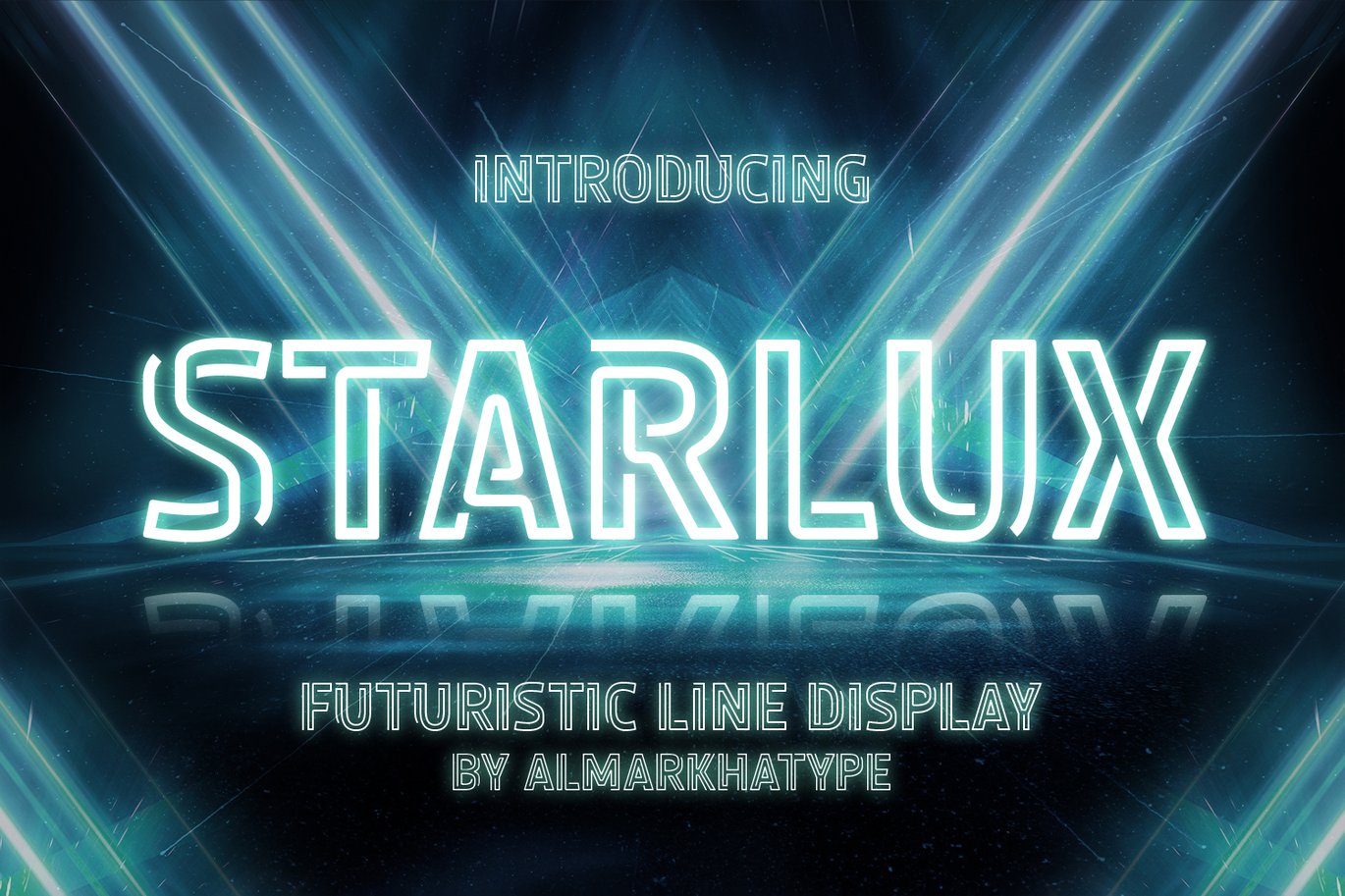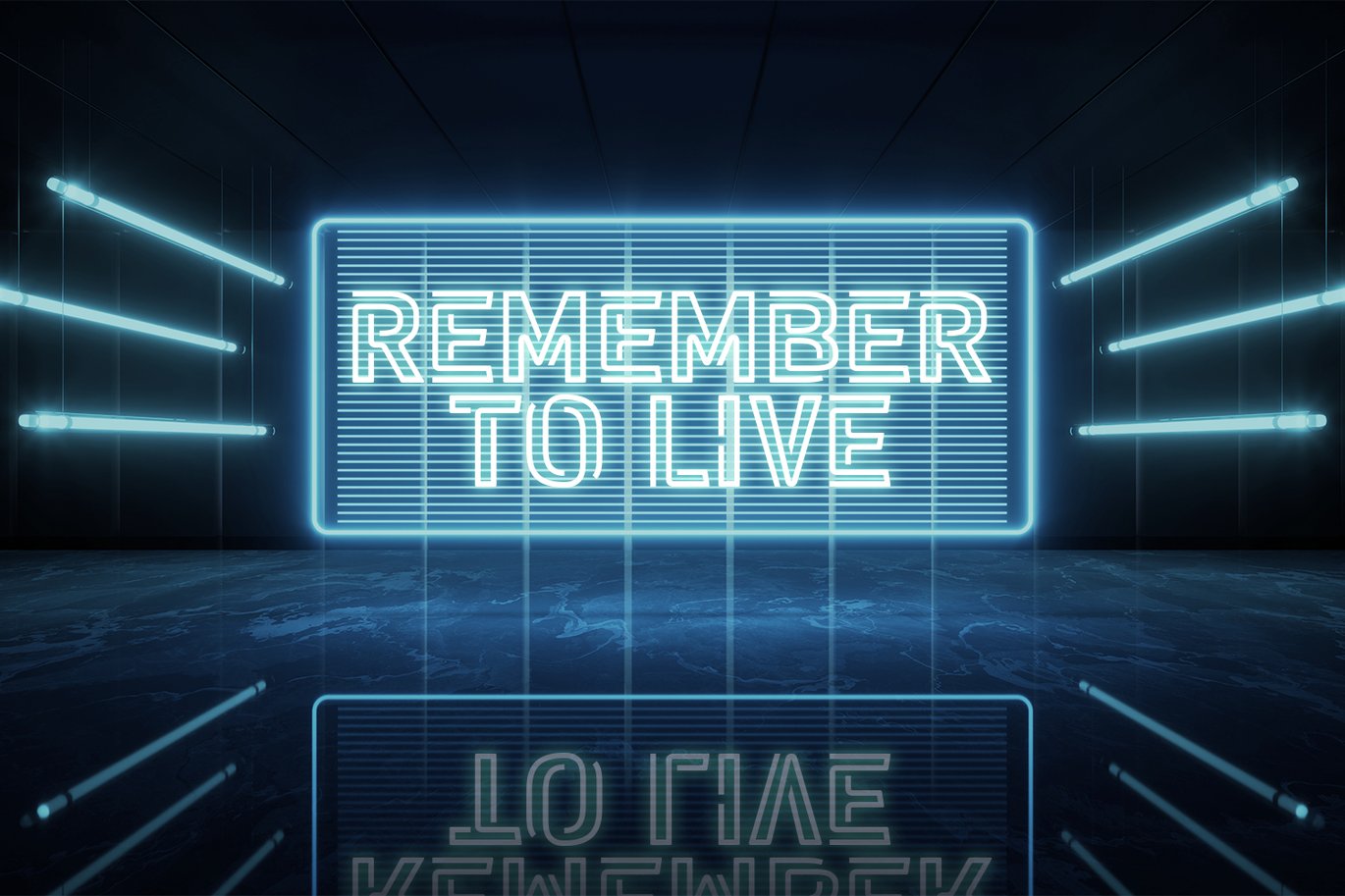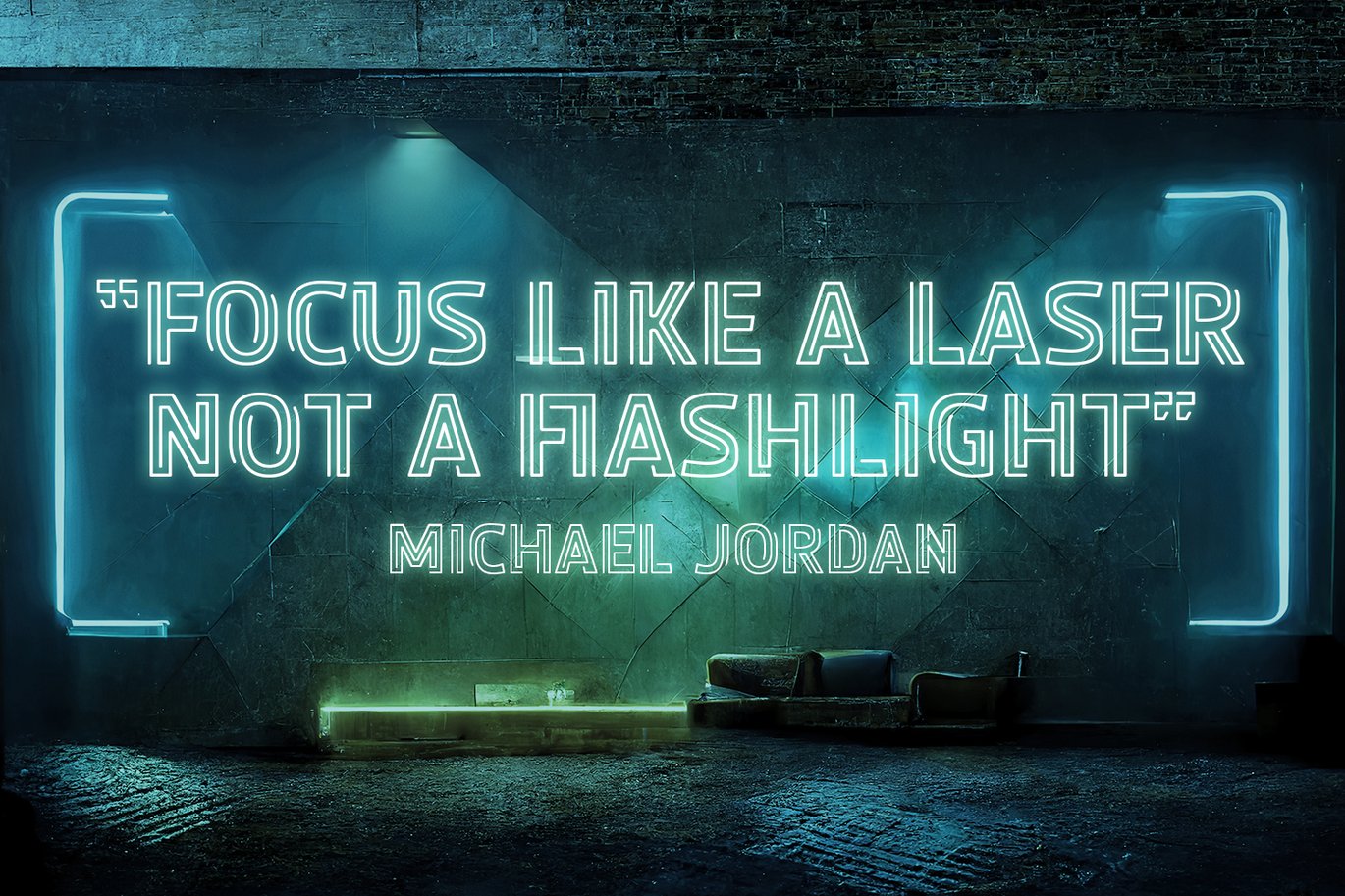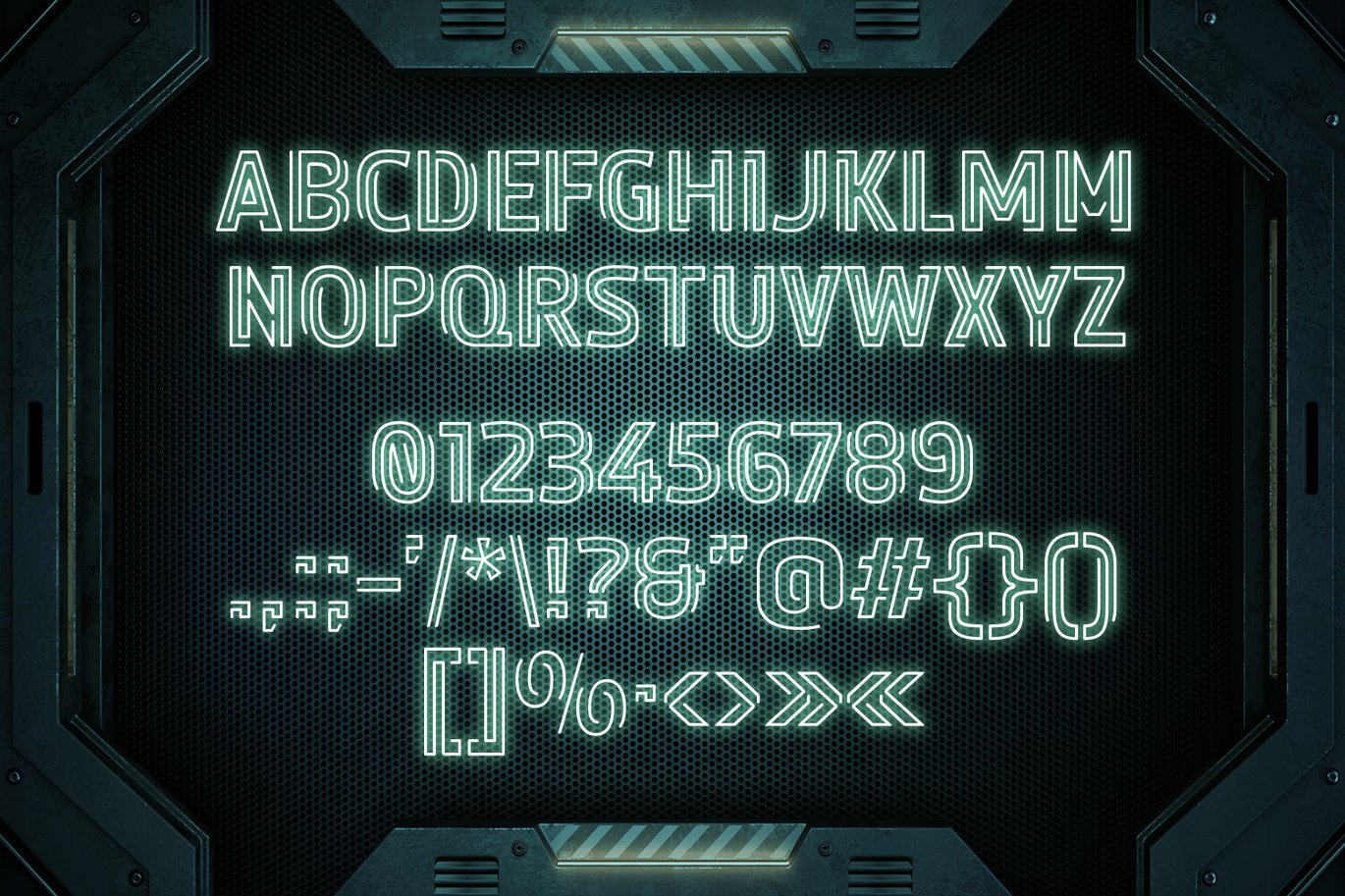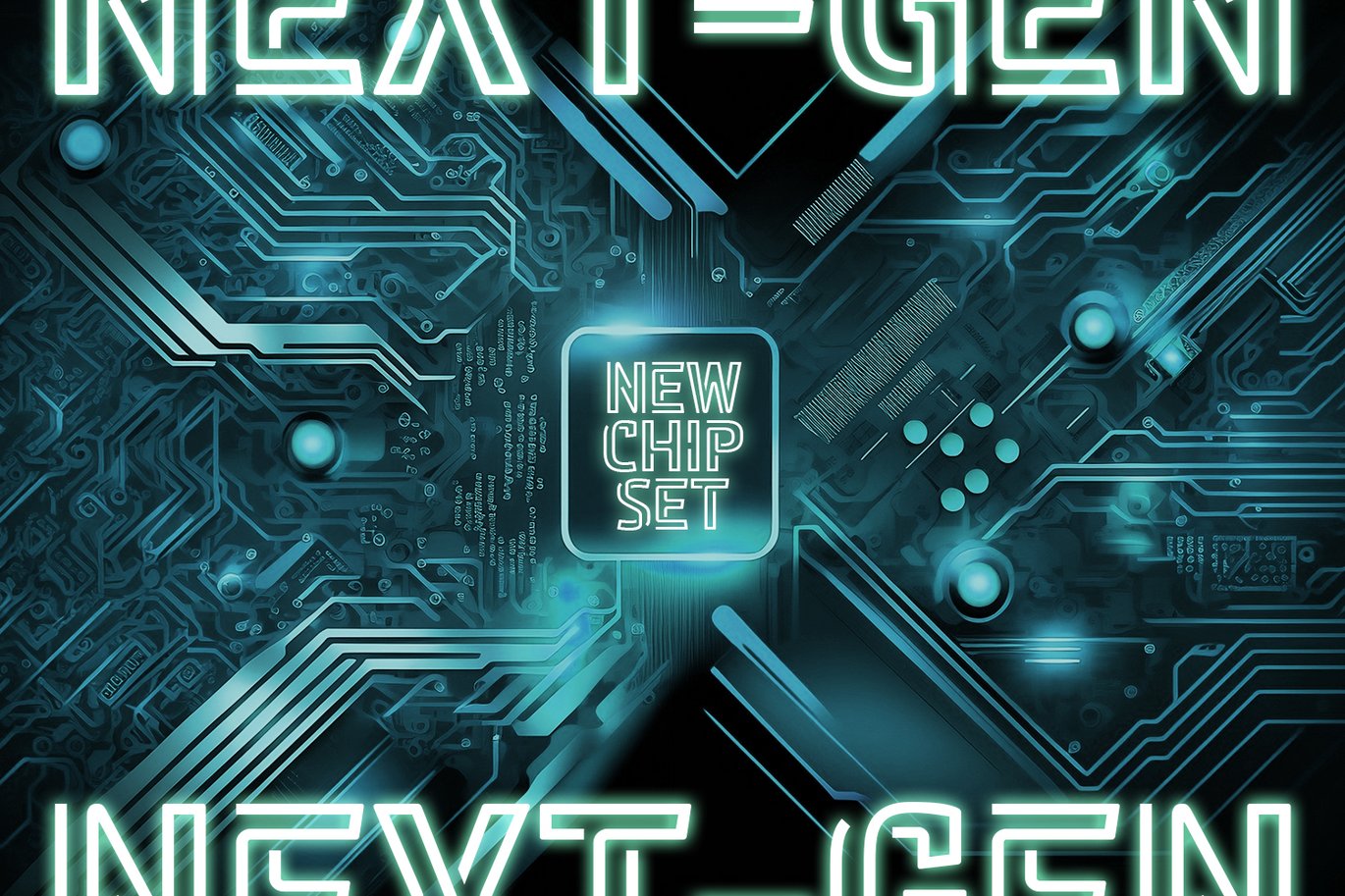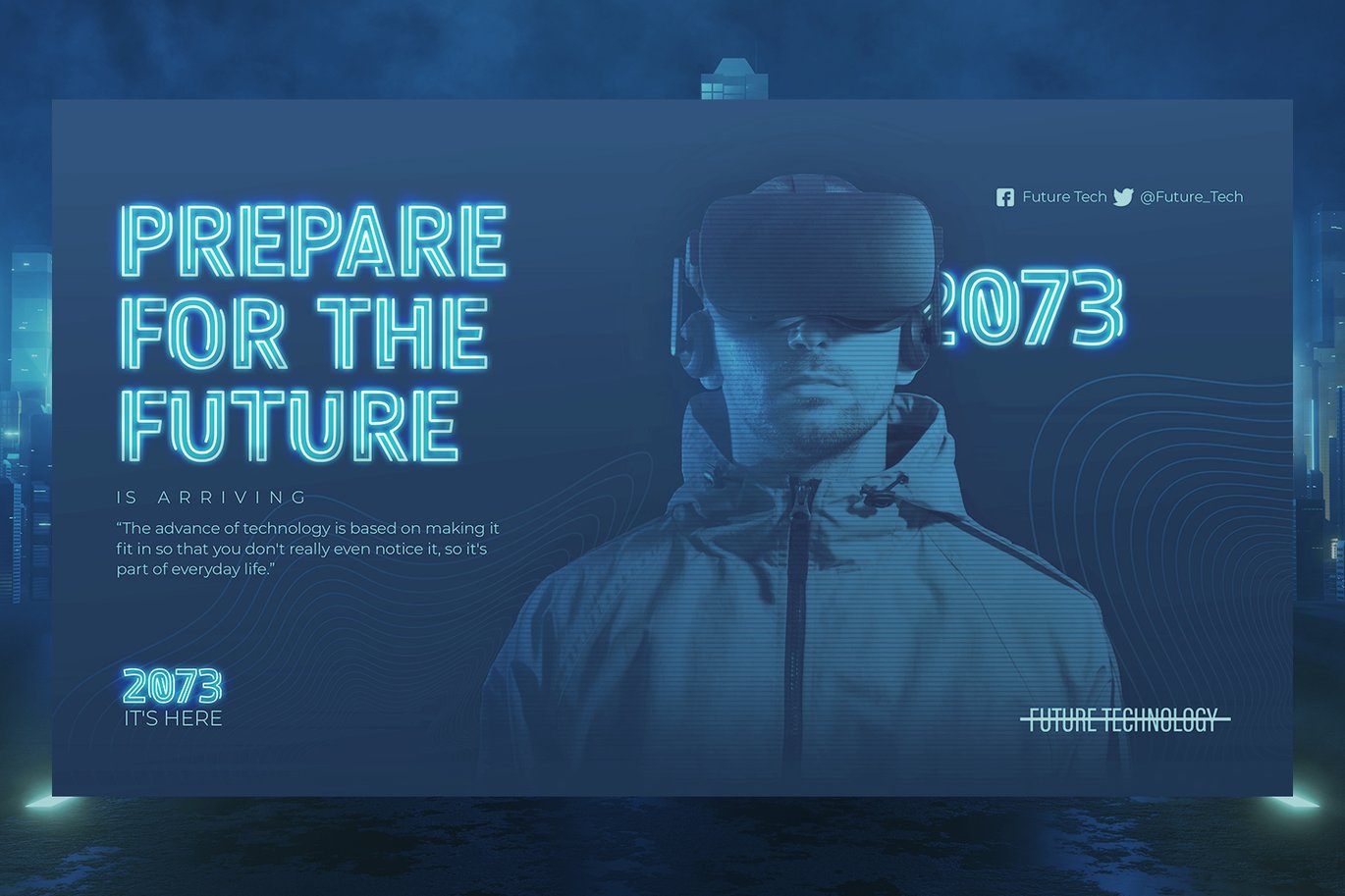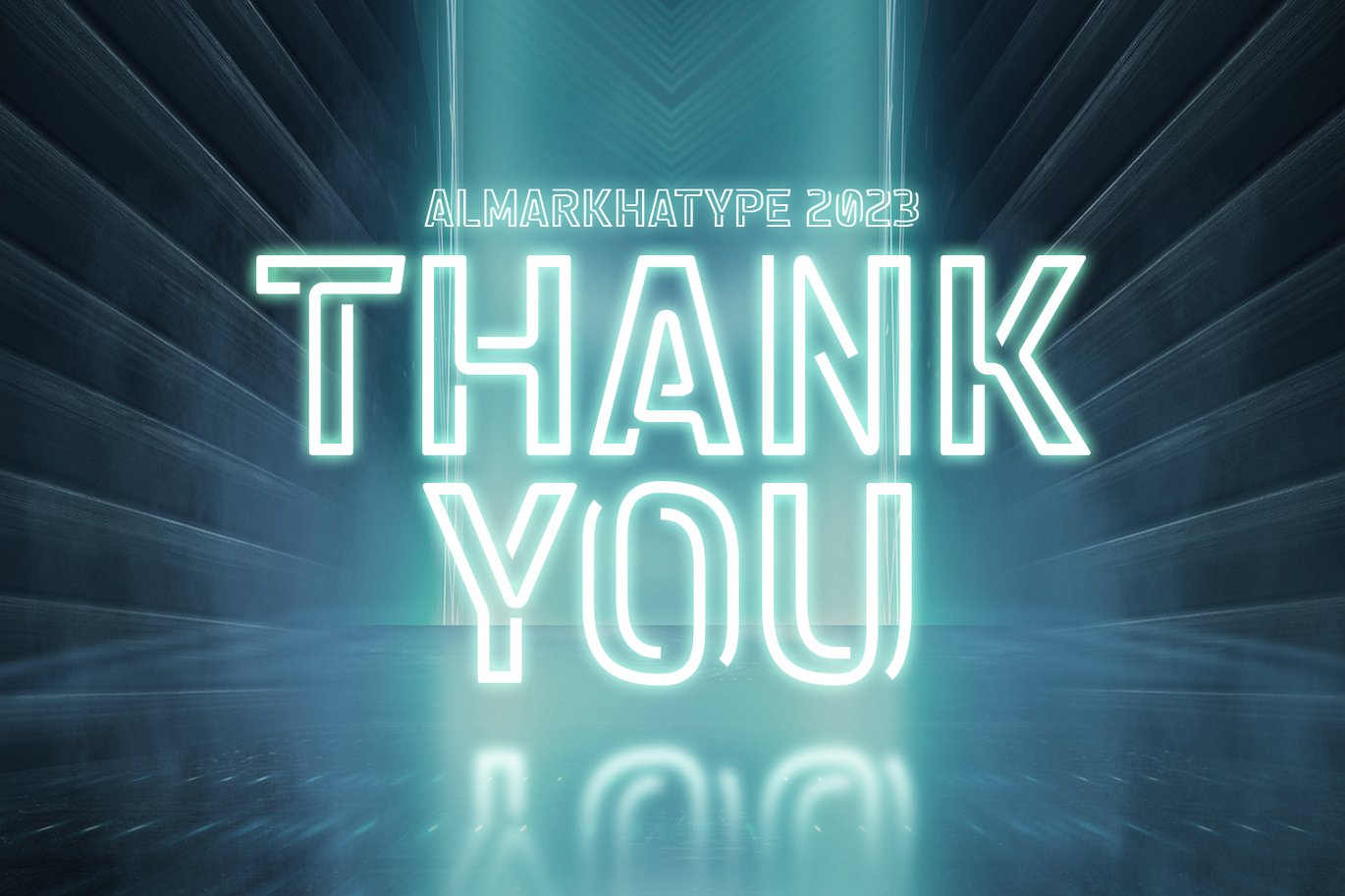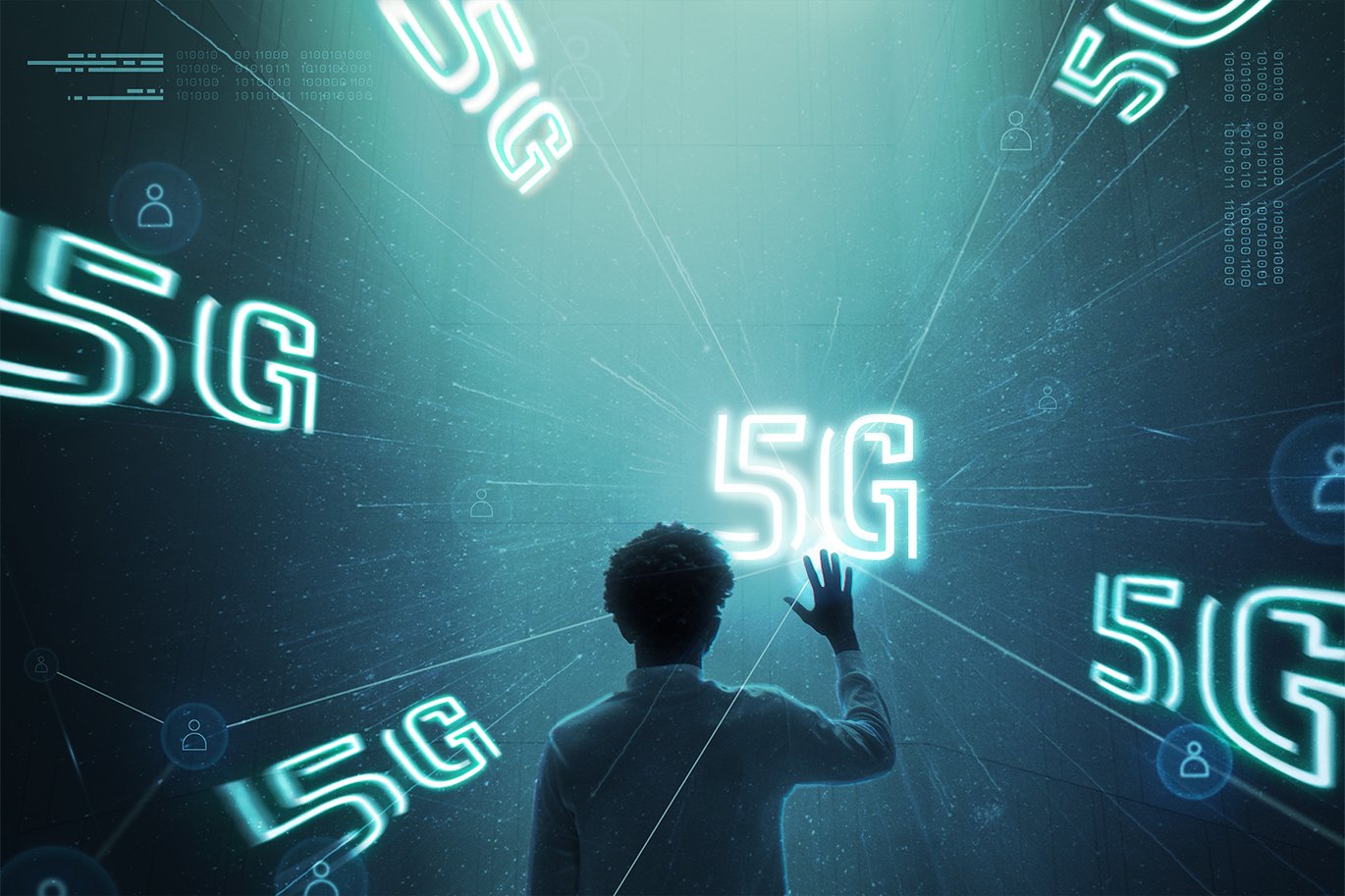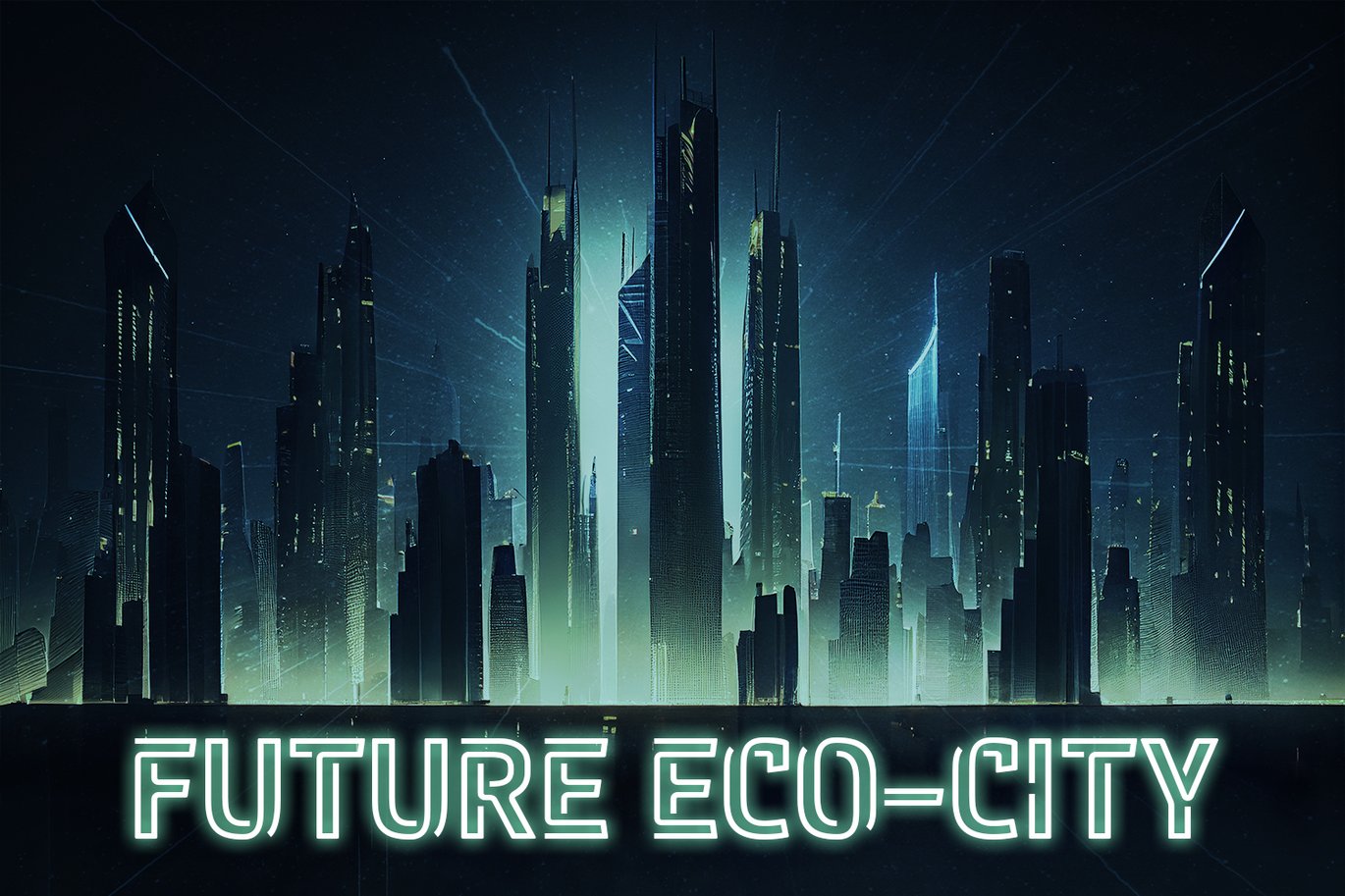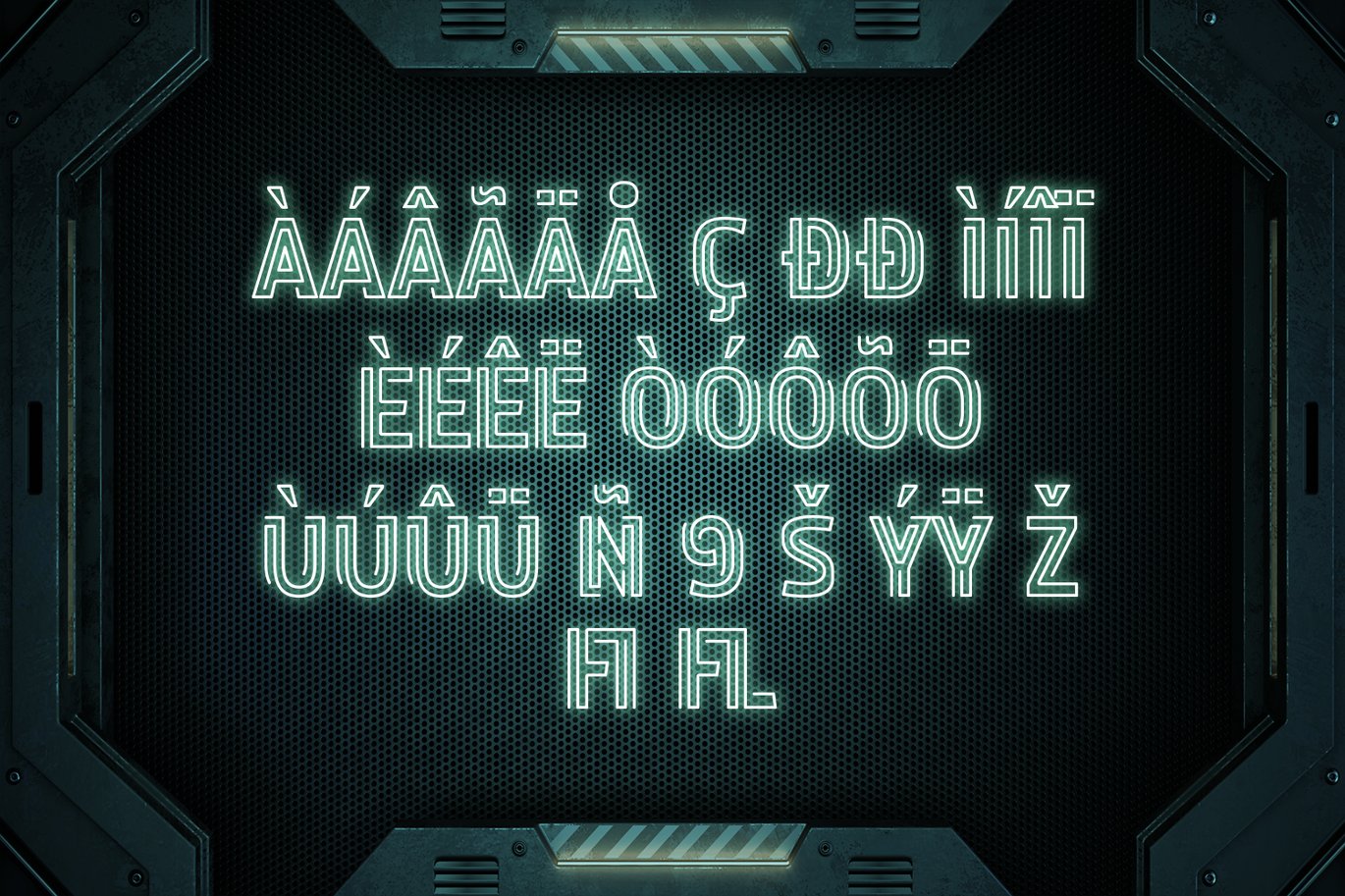
Starlux – Sci-fi Neon Font
Introducing Starlux, the ultimate Neon Sci-fi Futuristic Font that will give your futuristic logotypes a distinct edge. Drawing inspiration from real-world neon light signs, Starlux is your go-to choice for adding custom glowing effects or designing authentic neon signs.
Featuring unique design characters, Starlux is perfect for a wide range of projects, allowing you to create stunning designs, headlines, posters, logos, badges, and more. From social media posts to logos, posters, labels, and beyond, Starlux offers unparalleled versatility to meet all your design requirements. Illuminate your projects today with the captivating style of Starlux!